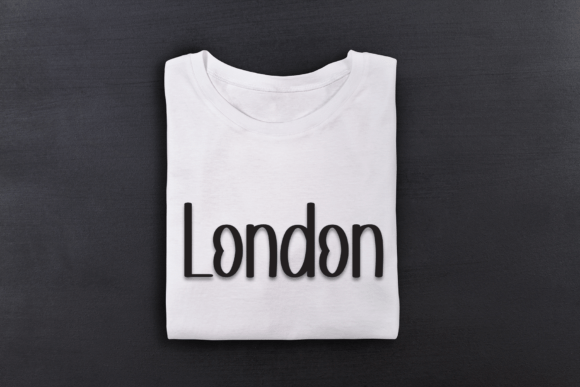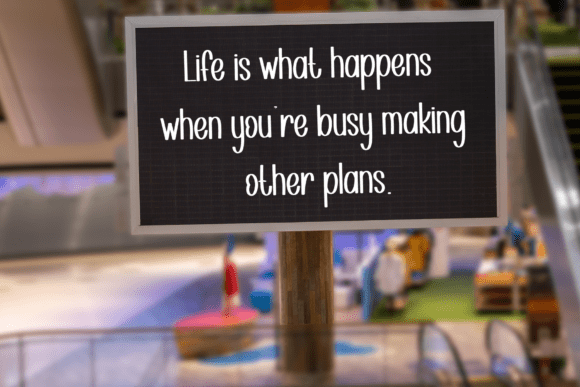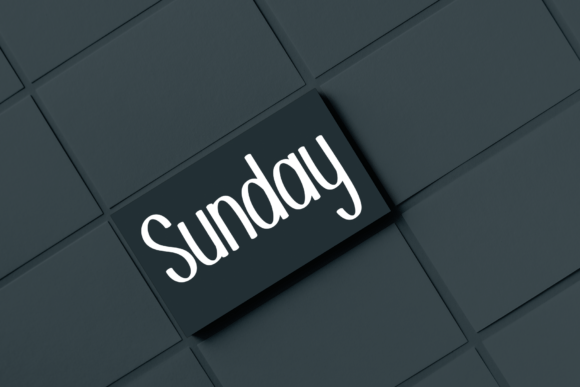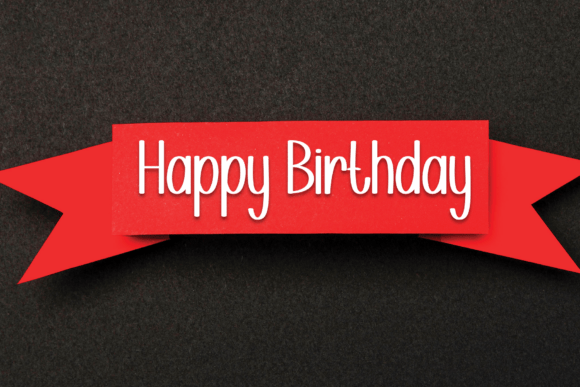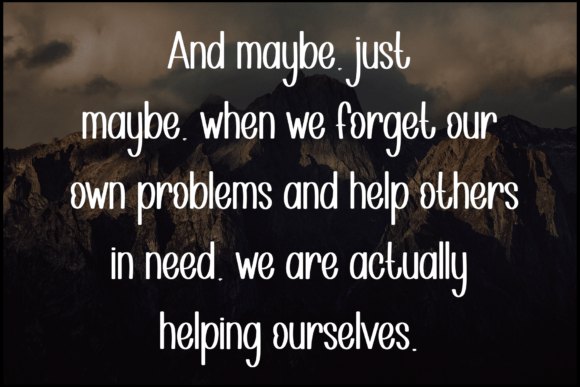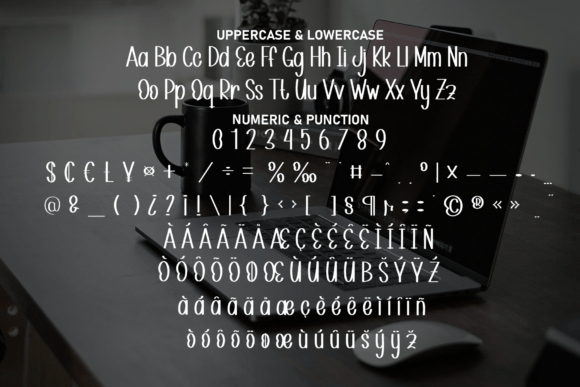
Introducing Black Homework Font: Elevate Your Designs with a Fresh and Modern Touch
In the world of digital design, typography plays a crucial role in conveying the tone and personality of a brand or creative project. A well-chosen font can make all the difference in capturing the audience’s attention and leaving a lasting impression. If you’re on the hunt for a font that exudes a perfect blend of fun, professionalism, and modernity, look no further than the Black Homework Font. This clean and charming handmade font is designed to bring a fresh and modern touch to any creative project, making it an excellent choice for designers and crafters alike.
What Makes Black Homework Font Stand Out?
The Black Homework Font boasts a unique combination of characteristics that set it apart from other fonts. Its tall, narrow letterform and smooth curves give it a distinctive look that’s both elegant and approachable. This font is perfect for adding a personal touch to your designs, whether you’re working on branding, blog titles, planners, or digital designs. The Black Homework Font’s versatility and charm make it an excellent addition to any designer’s toolkit.
Key Features of Black Homework Font
- Clean and Charming Design: The Black Homework Font features a clean and charming design that’s perfect for creating visually appealing designs.
- Tall, Narrow Letterform: The font’s tall, narrow letterform gives it a distinctive look that’s both elegant and approachable.
- Smooth Curves: The smooth curves of the Black Homework Font add a touch of sophistication and professionalism to any design.
- Handmade with Love: This font is carefully crafted with love and attention to detail, giving it a unique and personal touch.
- Perfect for Various Design Projects: The Black Homework Font is suitable for a wide range of design projects, including branding, blog titles, planners, and digital designs.
Use Cases for Black Homework Font
The Black Homework Font is an incredibly versatile font that can be used in various design projects. Here are some use cases to get you started:
- Branding: Use the Black Homework Font to create a unique and memorable brand identity that stands out from the crowd.
- Blog Titles: Add a touch of elegance and sophistication to your blog titles with the Black Homework Font.
- Planners and Journals: The Black Homework Font is perfect for creating visually appealing planners and journals that are both functional and stylish.
- Digital Designs: Use the Black Homework Font to add a personal touch to your digital designs, such as social media graphics, presentations, and more.
Why Designers and Crafters Love Black Homework Font
The Black Homework Font has quickly become a favorite among designers and crafters due to its unique combination of style, versatility, and charm. Here are some reasons why:
- Easy to Read: The Black Homework Font is incredibly easy to read, making it perfect for body text and headings.
- Highly Versatile: This font can be used in a wide range of design projects, from print to digital.
- Unique and Memorable: The Black Homework Font’s distinctive look makes it an excellent choice for creating unique and memorable designs.